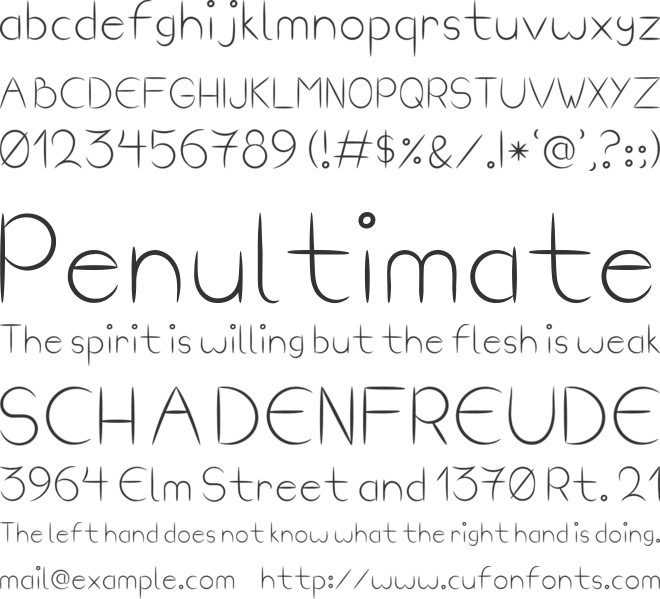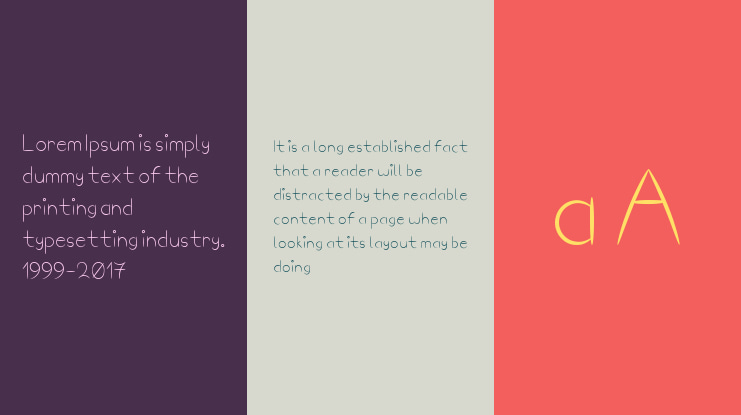
Binz Medium font family. A cartoonish font face with discreet rounded curvature.
Created by Kay Stenschke, 2012,Made with FontForge 2.0 (http://fontforge.sf.net)